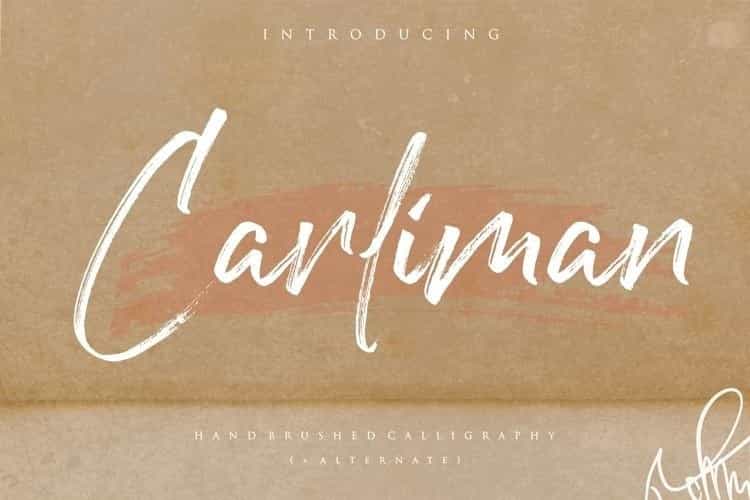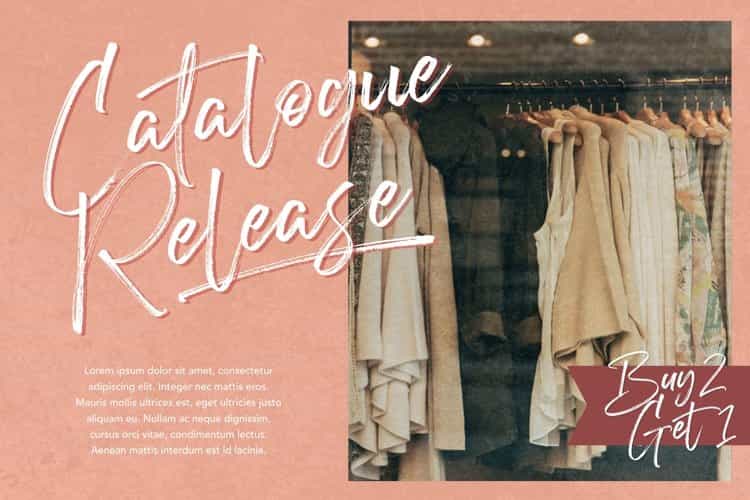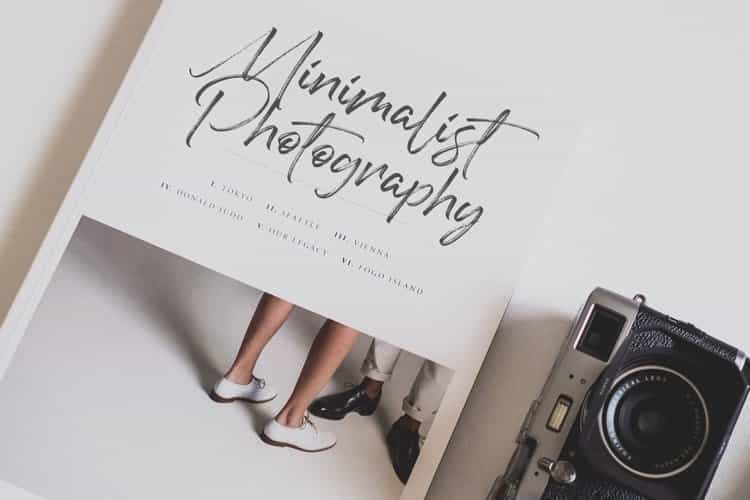
Carliman comes as a handwritten brush font created using a brush and scanned then digitalized. It is a certain font with a specific look and feel that is progressive and has a grainy interior. This font will produce a design that will be real and one of a kind.